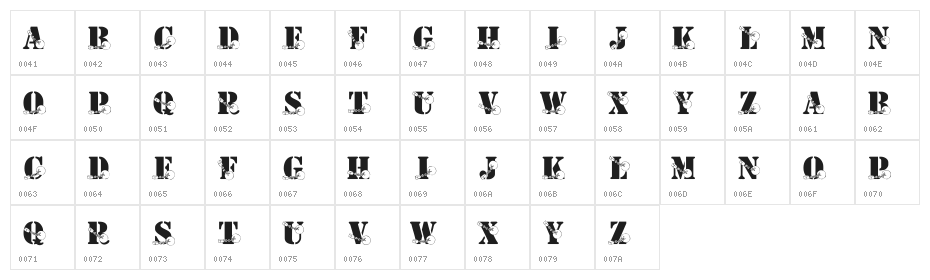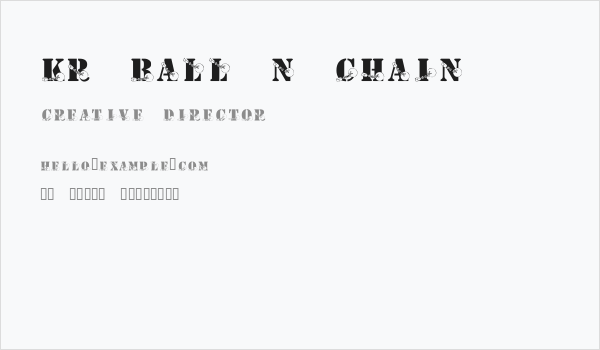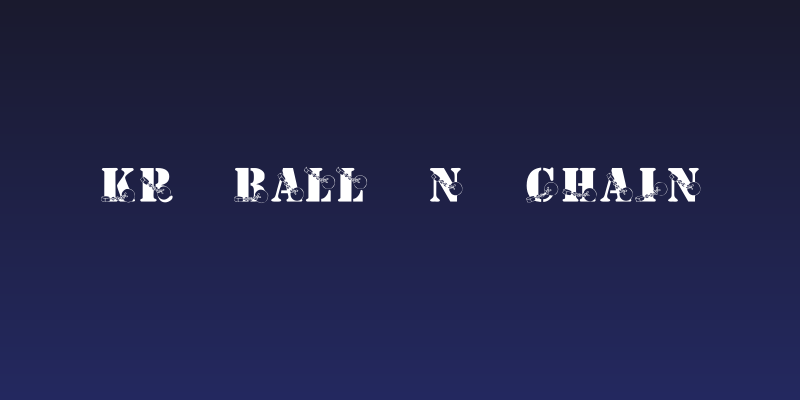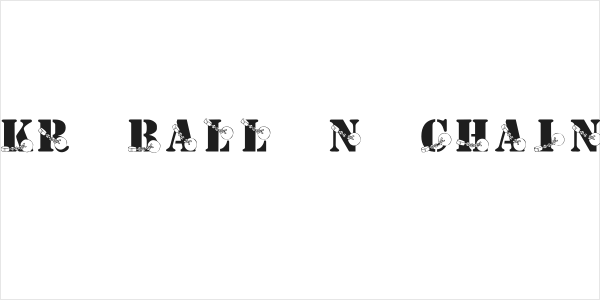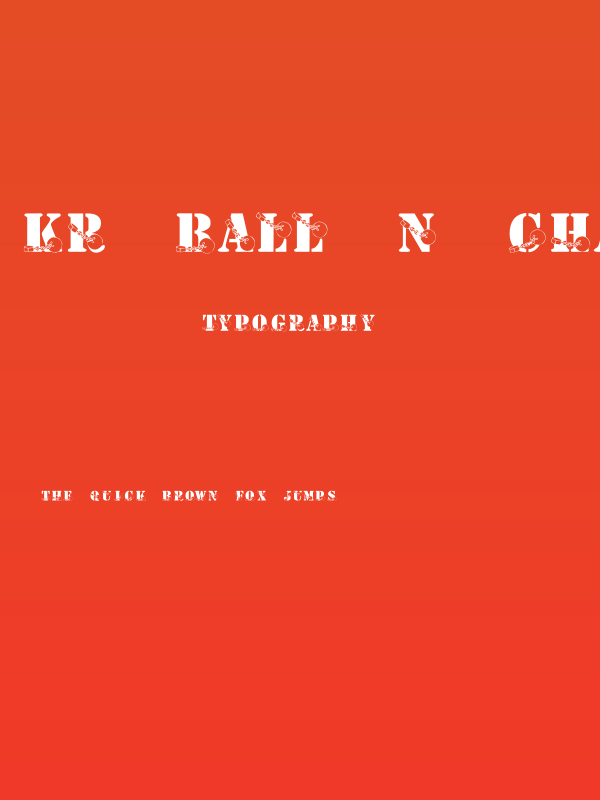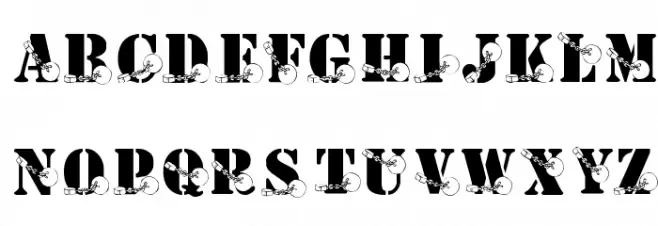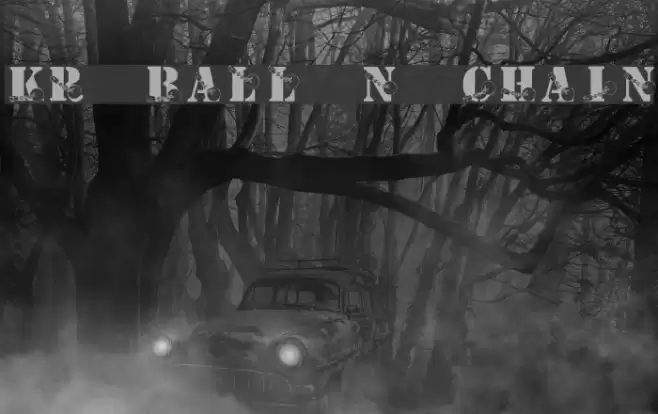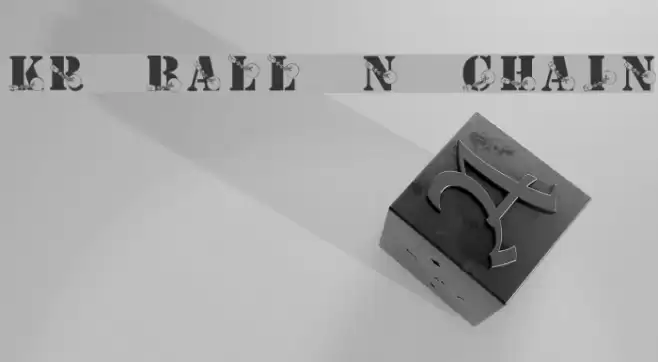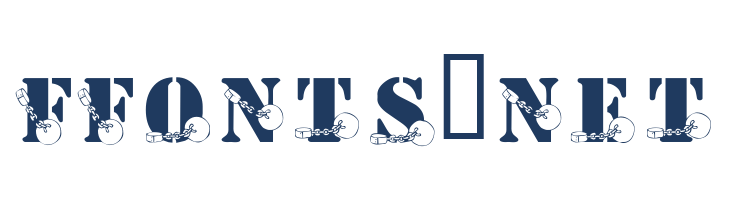
KR Ball N Chain Font
This font features a bold and decorative style, incorporating a unique design element where each letter is intertwined with a chain motif. The letters are uppercase and exhibit a strong, block-like structure, making them highly visible and impactful. The chain design adds a playful and thematic touch, suitable for creative and themed projects. The overall appearance is striking and memorable, with a high level of detail in the chain elements that wrap around each character. This font is ideal for projects that require a bold statement or a thematic connection to chains or linked elements.
| Proposed Projects | Ideal for themed posters, event invitations, branding for edgy or industrial-themed businesses, and creative design projects. |